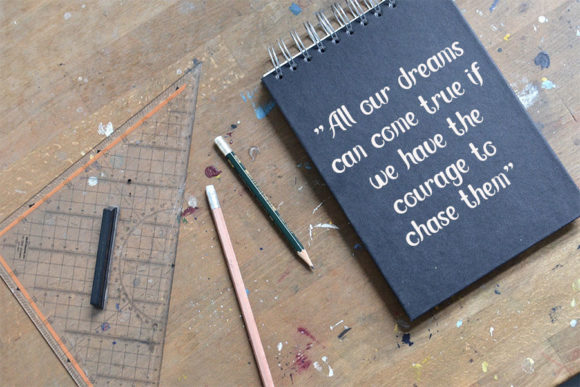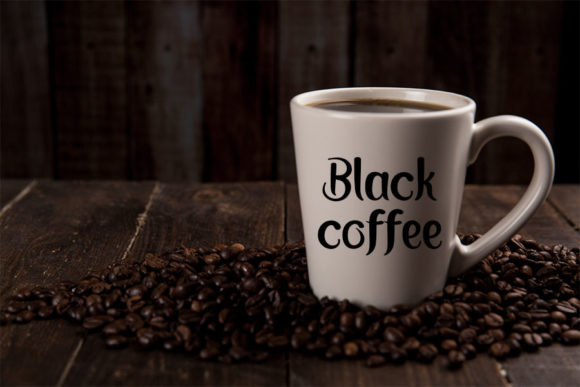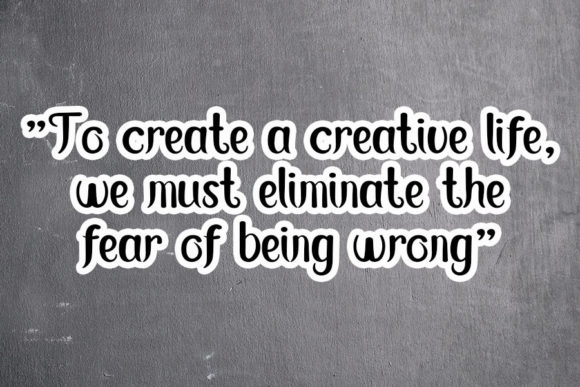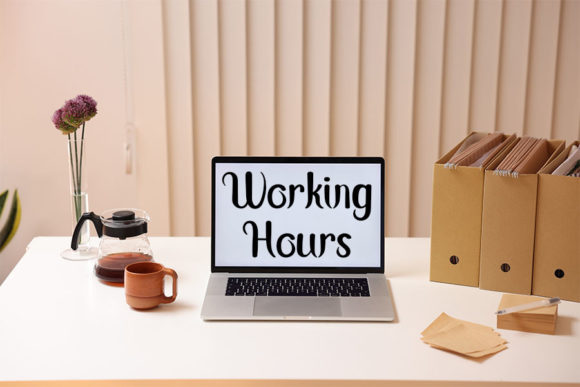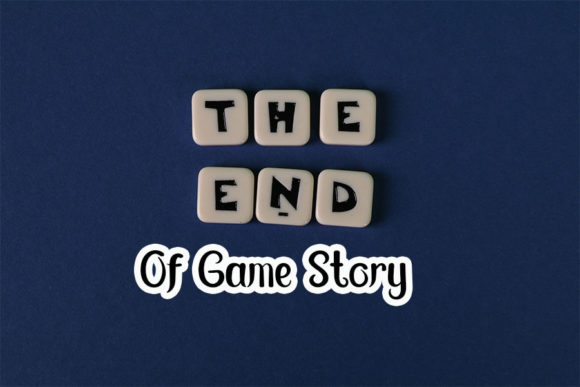
Sunset Font
About Sunset Font
**Sunset Font: Slim and Delicate Handwritten Elegance**
Introducing *Sunset Font*, a slim and delicate handwritten typeface designed to bring a dainty and joyful charm to your projects. Perfect for writing wedding invitations, cards, or any design that requires a romantic and personalized touch, this font adds an elegant and refined aesthetic to your creative endeavors.
The beauty of *Sunset* lies in its slim and delicate strokes, creating a visual experience that exudes both sophistication and personalization. Each letter is carefully crafted to capture the essence of handwritten charm, infusing a sense of joy into your designs.
Ideal for romantic projects, wedding invitations, and personalized cards, *Sunset* gracefully adapts to various design contexts. Its slender form and delicate demeanor make it an excellent choice when you want to evoke a feeling of elegance and intimacy.
Consider *Sunset Font* as a charming tool that allows you to add a romantic and personalized touch to your designs. Each letter becomes a brushstroke of joy, turning your projects into visually appealing works that resonate with a refined and delicate aesthetic.
In summary, *Sunset Font* is more than just a typeface; it’s an invitation to enhance your designs with slim and delicate handwritten elegance. Embrace its refined charm, letting it become the cherished element that elevates the romantic and personalized appeal of your creative endeavors.